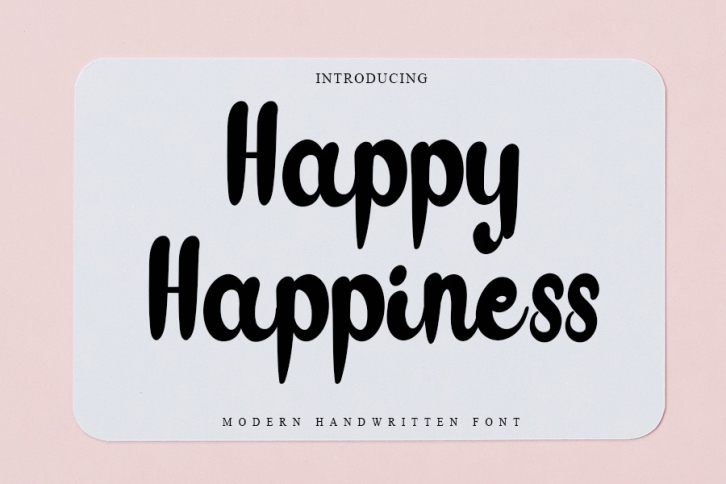
Happy Happiness is an enchanting handwritten font. This versatile typeface has a wide spectrum of applications ranging from greeting cards to headlines and is guaranteed to add a romantic feel to your next project.